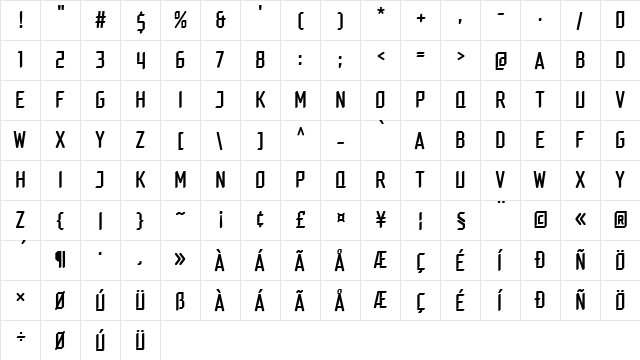
MD Dasher Regular
| Foundry | Mixture Design |
| Designer | Ethan Huang Fei |
Design Context for MD Dasher Typeface
MD Dasher takes a measured approach to typography — its balanced proportions and neutral character make it a reliable workhorse for both digital and print work.